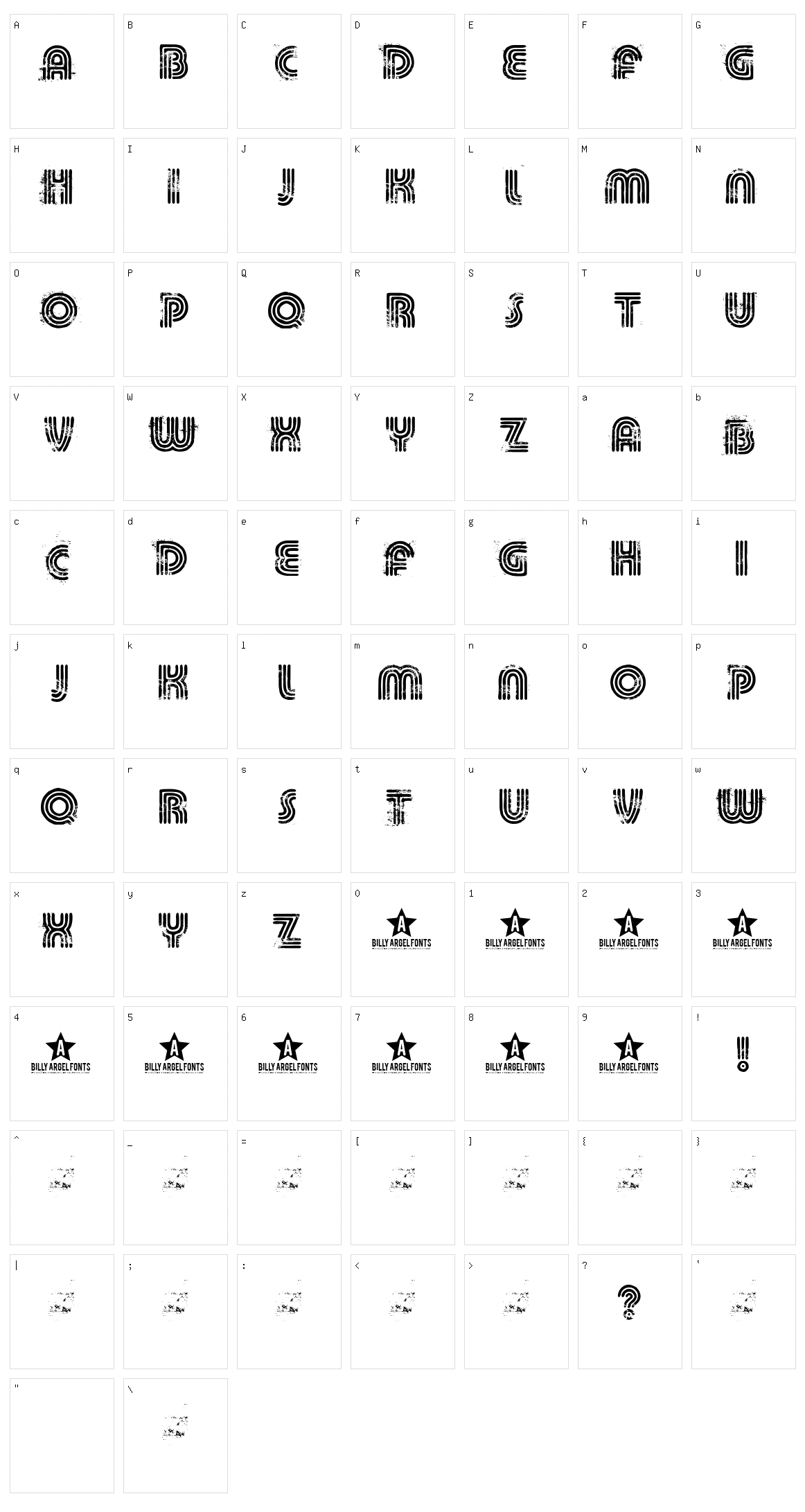
The free font Killed DJ is carefully designed by Billy Argel Fonts ®, showcasing a thoughtful balance of creativity and usability and falls under the Eroded font style. When you download the ZIP file, it contains only 436.62 KB of font files, making it lightweight and quick to download. Please review the license details below to understand permitted usage and distribution rights. If license information is not available, we recommend using this font for personal projects only or contacting the author directly for commercial usage permissions.
killed dj